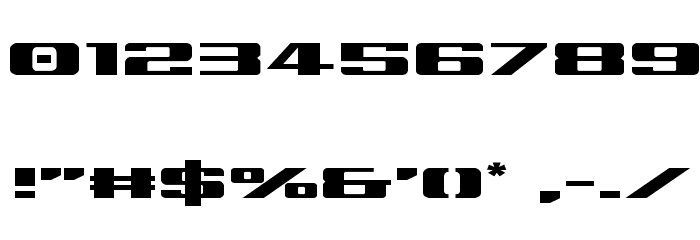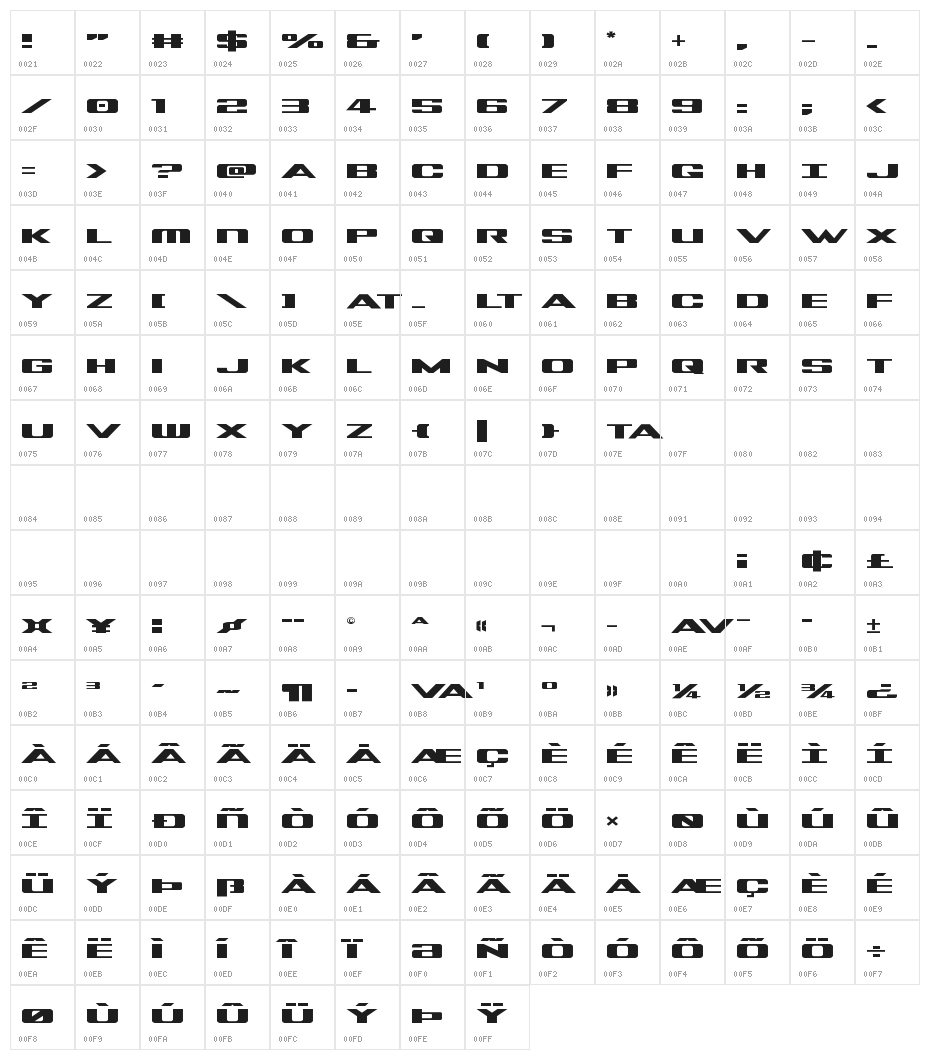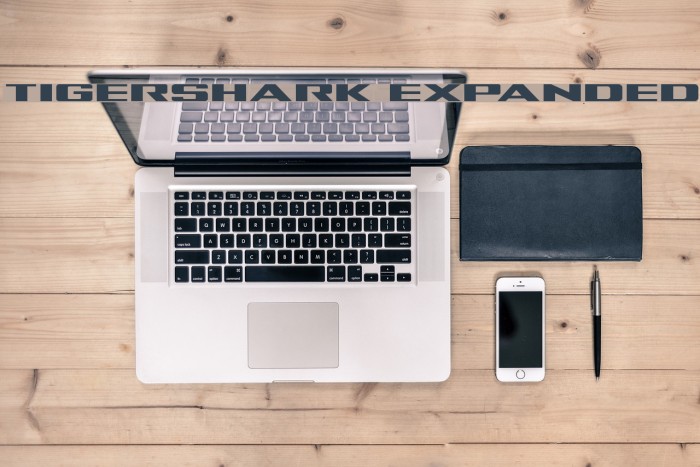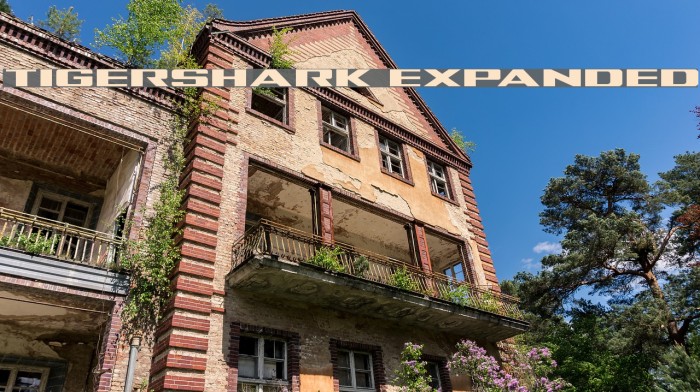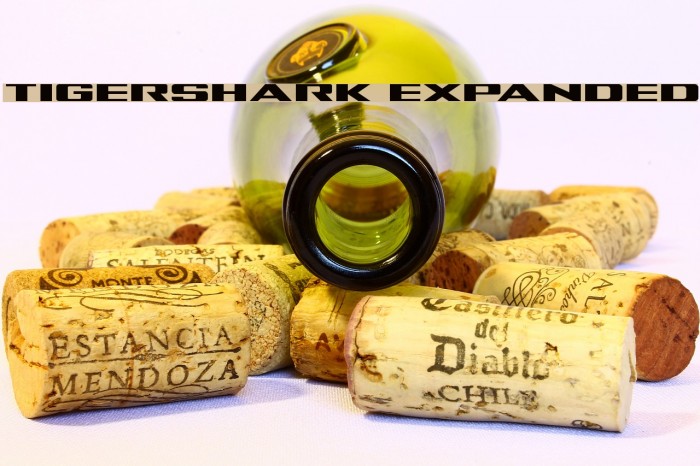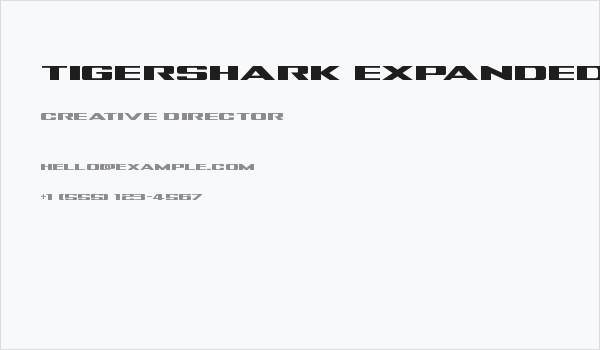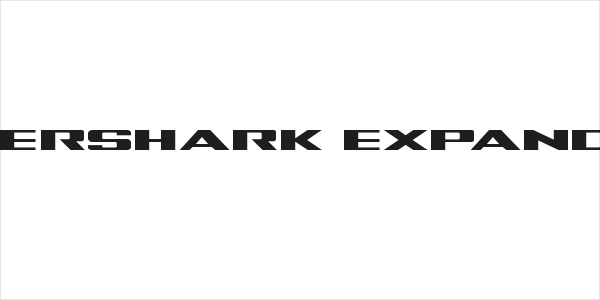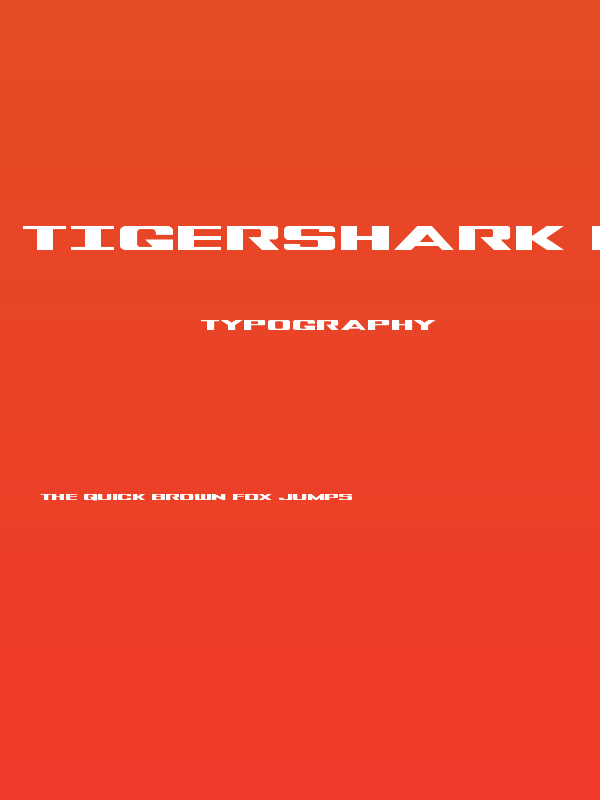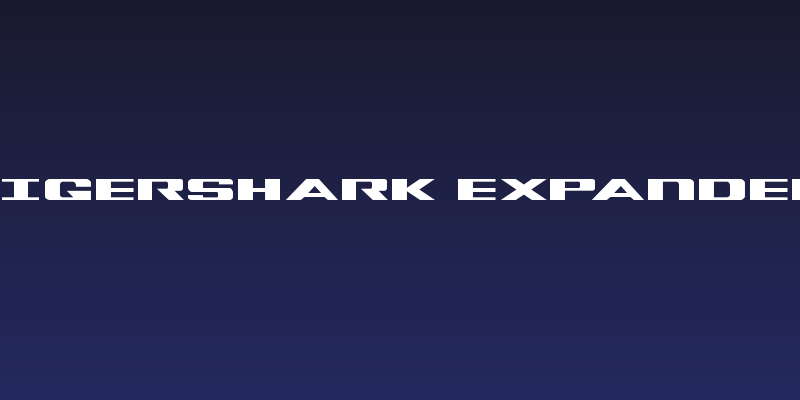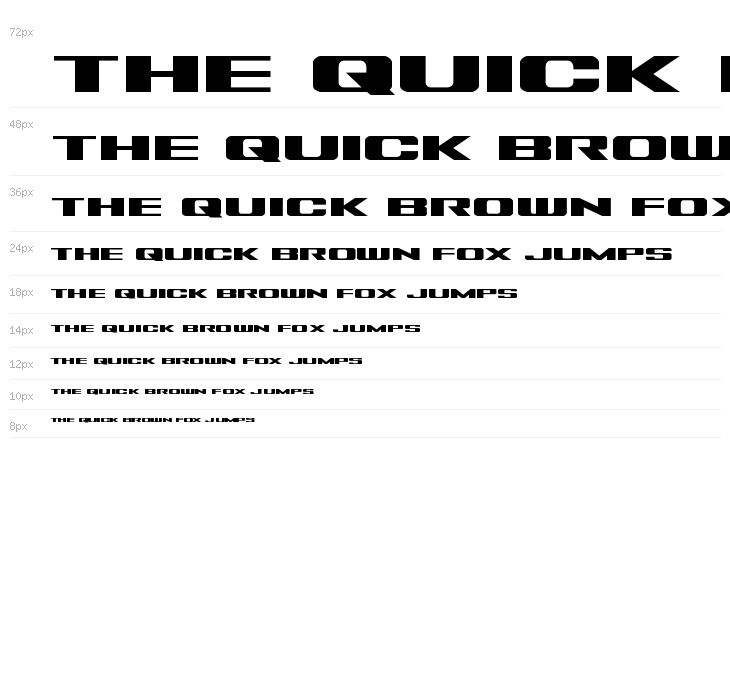
Tigershark Expanded Font
Tigershark Expanded Description
This font features a bold and dynamic design with a distinctly modern and futuristic aesthetic. The characters are wide and expanded, giving a sense of strength and presence. The angular cuts and sharp edges add a sense of speed and movement, making it ideal for projects that require a bold statement. The uppercase letters are particularly striking, with a uniform height that enhances readability. The numbers and special characters maintain the same bold style, ensuring consistency across all text elements.
Proposed ProjectsIdeal for sports branding, video game titles, technology-themed posters, and dynamic advertising campaigns.